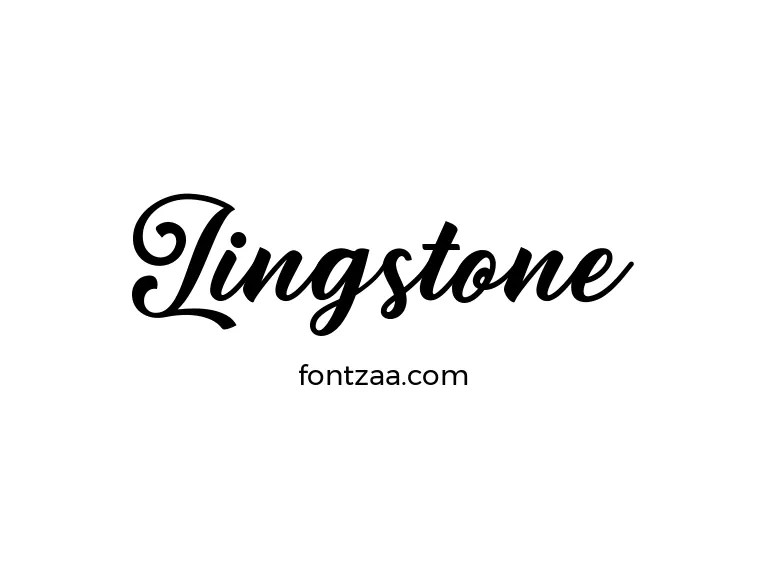
Lingstone Font introduces a elegant typographic style that can give creative projects a more individual appearance. Lingstone Font brings a elegant personality to typography and gives designers a flexible starting point for creative display work. The typeface can change considerably depending on tracking, scale, alignment, background and surrounding imagery. Different color combinations can make the same font feel subtle, energetic, premium or highly decorative. The font can work as the primary visual element in a minimal layout or as part of a more detailed composition. Designers may explore it across invitations, wedding stationery, signatures, quotes and elegant branding, depending on the tone and requirements of the project. A clean serif or sans serif companion can handle smaller text while this font remains focused on headlines and key messages. Keeping secondary typography simple often allows the distinctive qualities of the main font to remain more visible. The designer or publisher information available for this typeface is Gatype. The available licensing label is Free for personal use, but redistribution and commercial permissions should always be confirmed from the original source. Experimenting directly in the intended design is usually the best way to judge whether the typeface suits the project.
Lingstone Font brings a elegant personality to typography and gives designers a flexible starting point for headlines, branding and promotional layouts. Different color combinations can make the same font feel subtle, energetic, premium or highly decorative. The typeface can change considerably depending on tracking, scale, alignment, background and surrounding imagery. Using generous space around the lettering can help the details of the typeface remain visible instead of competing with other elements. Its display-focused appearance makes it worth testing in invitations, wedding stationery, signatures, quotes and elegant branding. Print and digital layouts may require different sizing and spacing, so testing the actual output dimensions is recommended. Keeping secondary typography simple often allows the distinctive qualities of the main font to remain more visible. Source metadata currently associates the font with Gatype. Current license information is shown as Free for personal use; checking the original documentation is recommended before client or commercial work. A few quick layout variations can help determine where the font creates the strongest visual result.
For projects that need typography with a stronger identity, Lingstone Font offers a elegant direction suited to digital and print projects. Its letter shapes become especially noticeable at larger sizes, where spacing and proportions can be explored more clearly. Testing several arrangements before choosing the final version can reveal which characteristics of the typeface work best. The typeface can change considerably depending on tracking, scale, alignment, background and surrounding imagery. The font can be considered for projects such as invitations, wedding stationery, signatures, quotes and elegant branding. Keeping secondary typography simple often allows the distinctive qualities of the main font to remain more visible. For layouts containing longer information, pairing it with a simpler supporting typeface can improve readability and hierarchy. The designer or publisher information available for this typeface is Gatype. Current license information is shown as Free for personal use; checking the original documentation is recommended before client or commercial work. Its final appearance will depend heavily on the surrounding colors, imagery, spacing and supporting typography.
Lingstone Font Family
The Lingstone Font Family can be explored in multiple compositions by adjusting typography size, spacing and surrounding design elements. Designers exploring a elegant typeface can use Lingstone Font to add a more recognizable visual voice to font-family exploration. Using generous space around the lettering can help the details of the typeface remain visible instead of competing with other elements. The typeface can change considerably depending on tracking, scale, alignment, background and surrounding imagery. Its letter shapes become especially noticeable at larger sizes, where spacing and proportions can be explored more clearly. Creative uses may range from invitations, wedding stationery, signatures, quotes and elegant branding, with different results depending on scale and layout. For layouts containing longer information, pairing it with a simpler supporting typeface can improve readability and hierarchy. Designers should evaluate the typeface inside the real project because a standalone preview cannot show every possible visual combination. According to the available font information, the typeface is associated with Gatype. Current license information is shown as Free for personal use; checking the original documentation is recommended before client or commercial work. Testing the font with the actual project text can provide a much better impression than viewing isolated sample characters.
Design Ideas for Lingstone Font
The visual character of Lingstone Font makes it an interesting choice for designers working on different creative applications for the font. Testing several arrangements before choosing the final version can reveal which characteristics of the typeface work best. Different color combinations can make the same font feel subtle, energetic, premium or highly decorative. Using generous space around the lettering can help the details of the typeface remain visible instead of competing with other elements. Possible applications include invitations, wedding stationery, signatures, quotes and elegant branding. Keeping secondary typography simple often allows the distinctive qualities of the main font to remain more visible. Designers should evaluate the typeface inside the real project because a standalone preview cannot show every possible visual combination. The available source information lists Gatype as the designer or publisher. The available licensing label is Free for personal use, but redistribution and commercial permissions should always be confirmed from the original source. A few quick layout variations can help determine where the font creates the strongest visual result.
Best Uses for Lingstone Font
Lingstone Font brings a elegant personality to typography and gives designers a flexible starting point for practical ways designers can use the typeface. Using generous space around the lettering can help the details of the typeface remain visible instead of competing with other elements. Its letter shapes become especially noticeable at larger sizes, where spacing and proportions can be explored more clearly. The typeface can change considerably depending on tracking, scale, alignment, background and surrounding imagery. Possible applications include invitations, wedding stationery, signatures, quotes and elegant branding. For layouts containing longer information, pairing it with a simpler supporting typeface can improve readability and hierarchy. Previewing the final layout on both large and small screens helps identify spacing and readability problems early. The available source information lists Gatype as the designer or publisher. Current license information is shown as Free for personal use; checking the original documentation is recommended before client or commercial work. Testing the font with the actual project text can provide a much better impression than viewing isolated sample characters.
Choosing Supporting Fonts for Lingstone Font
For projects that need typography with a stronger identity, Lingstone Font offers a elegant direction suited to combining the display font with supporting typefaces. Testing several arrangements before choosing the final version can reveal which characteristics of the typeface work best. The font can work as the primary visual element in a minimal layout or as part of a more detailed composition. Its letter shapes become especially noticeable at larger sizes, where spacing and proportions can be explored more clearly. Designers may explore it across invitations, wedding stationery, signatures, quotes and elegant branding, depending on the tone and requirements of the project. Designers should evaluate the typeface inside the real project because a standalone preview cannot show every possible visual combination. Previewing the final layout on both large and small screens helps identify spacing and readability problems early. The designer or publisher information available for this typeface is Gatype. The available licensing label is Free for personal use, but redistribution and commercial permissions should always be confirmed from the original source. Experimenting directly in the intended design is usually the best way to judge whether the typeface suits the project.
What Makes Lingstone Font Stand Out
Lingstone Font stands out through its individual shapes and can become an important visual element in the visual characteristics and design personality of the typeface. Using generous space around the lettering can help the details of the typeface remain visible instead of competing with other elements. The typeface can change considerably depending on tracking, scale, alignment, background and surrounding imagery. The font can work as the primary visual element in a minimal layout or as part of a more detailed composition. The font can be considered for projects such as invitations, wedding stationery, signatures, quotes and elegant branding. Designers should evaluate the typeface inside the real project because a standalone preview cannot show every possible visual combination. Previewing the final layout on both large and small screens helps identify spacing and readability problems early. The designer or publisher information available for this typeface is Gatype. Current license information is shown as Free for personal use; checking the original documentation is recommended before client or commercial work. Its final appearance will depend heavily on the surrounding colors, imagery, spacing and supporting typography.
Explore More Fonts After Lingstone Font
Designers exploring a elegant typeface can use Lingstone Font to add a more recognizable visual voice to discovering alternatives and related typography. Different color combinations can make the same font feel subtle, energetic, premium or highly decorative. Using generous space around the lettering can help the details of the typeface remain visible instead of competing with other elements. The font can work as the primary visual element in a minimal layout or as part of a more detailed composition. The font can be considered for projects such as invitations, wedding stationery, signatures, quotes and elegant branding. A clean serif or sans serif companion can handle smaller text while this font remains focused on headlines and key messages. Designers should evaluate the typeface inside the real project because a standalone preview cannot show every possible visual combination. Source metadata currently associates the font with Gatype. The listed license is Free for personal use, although users should still review the original font package before commercial use. Experimenting directly in the intended design is usually the best way to judge whether the typeface suits the project. Explore more typography on Fontzaa or browse the 100% Free Fonts collection.